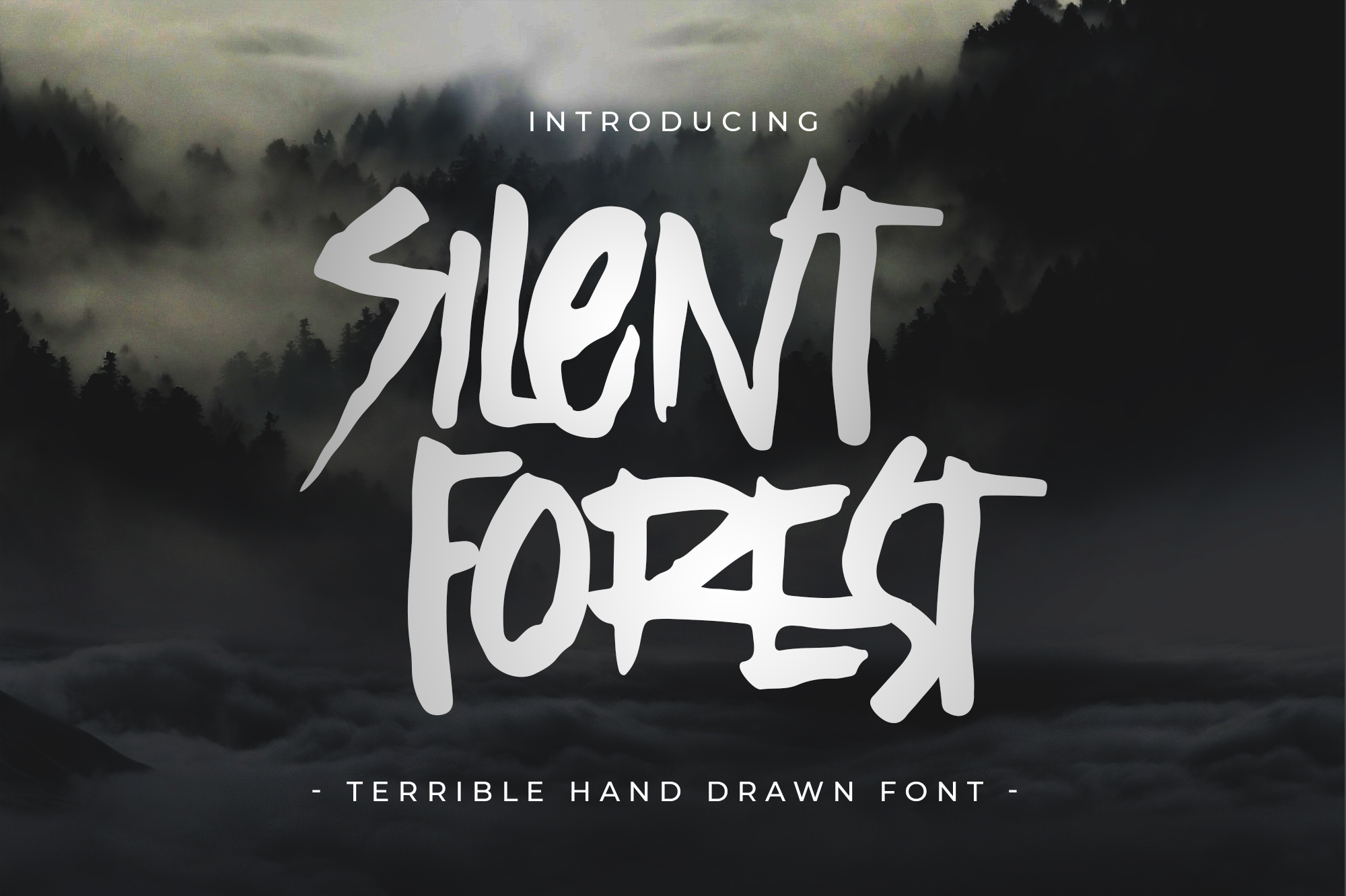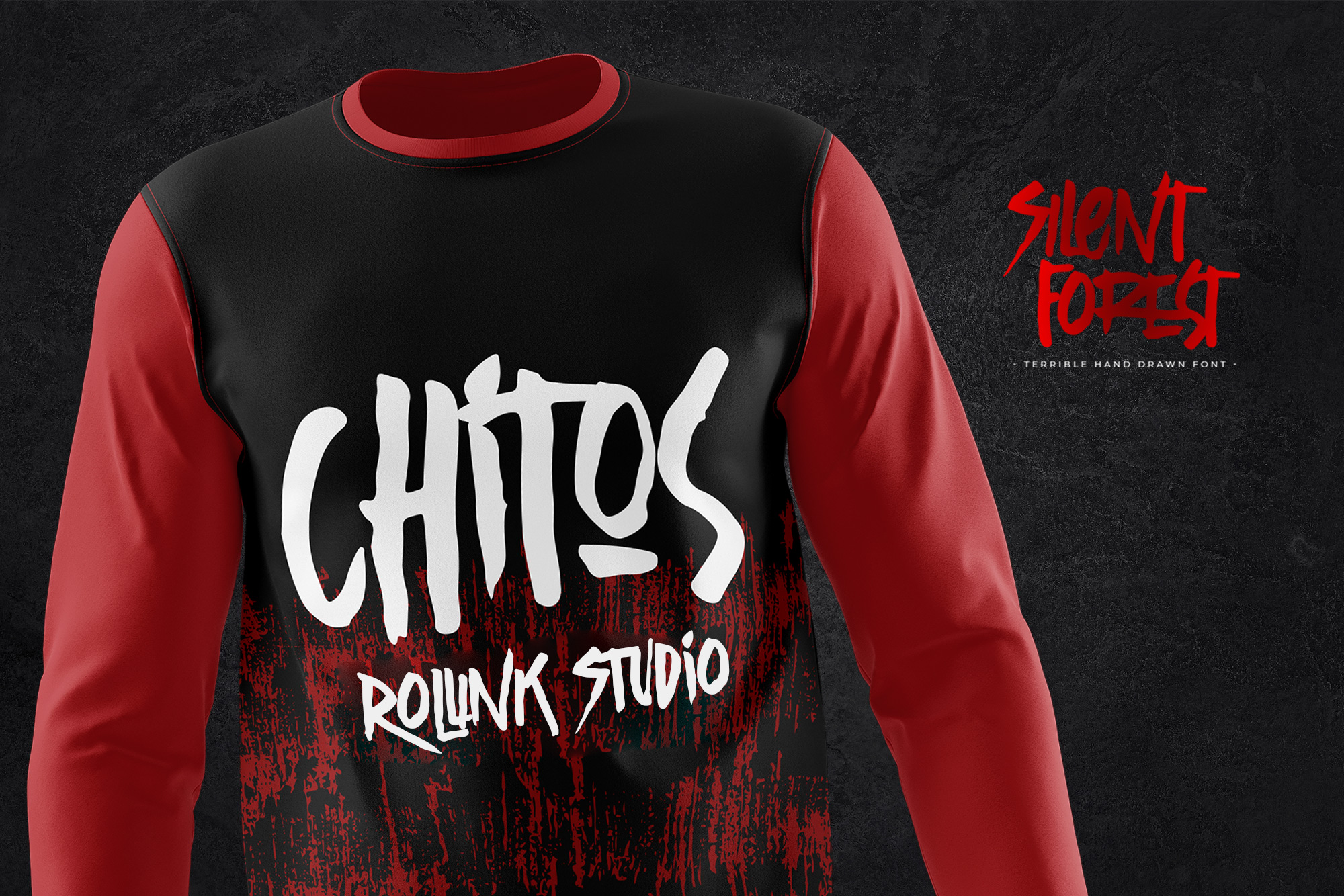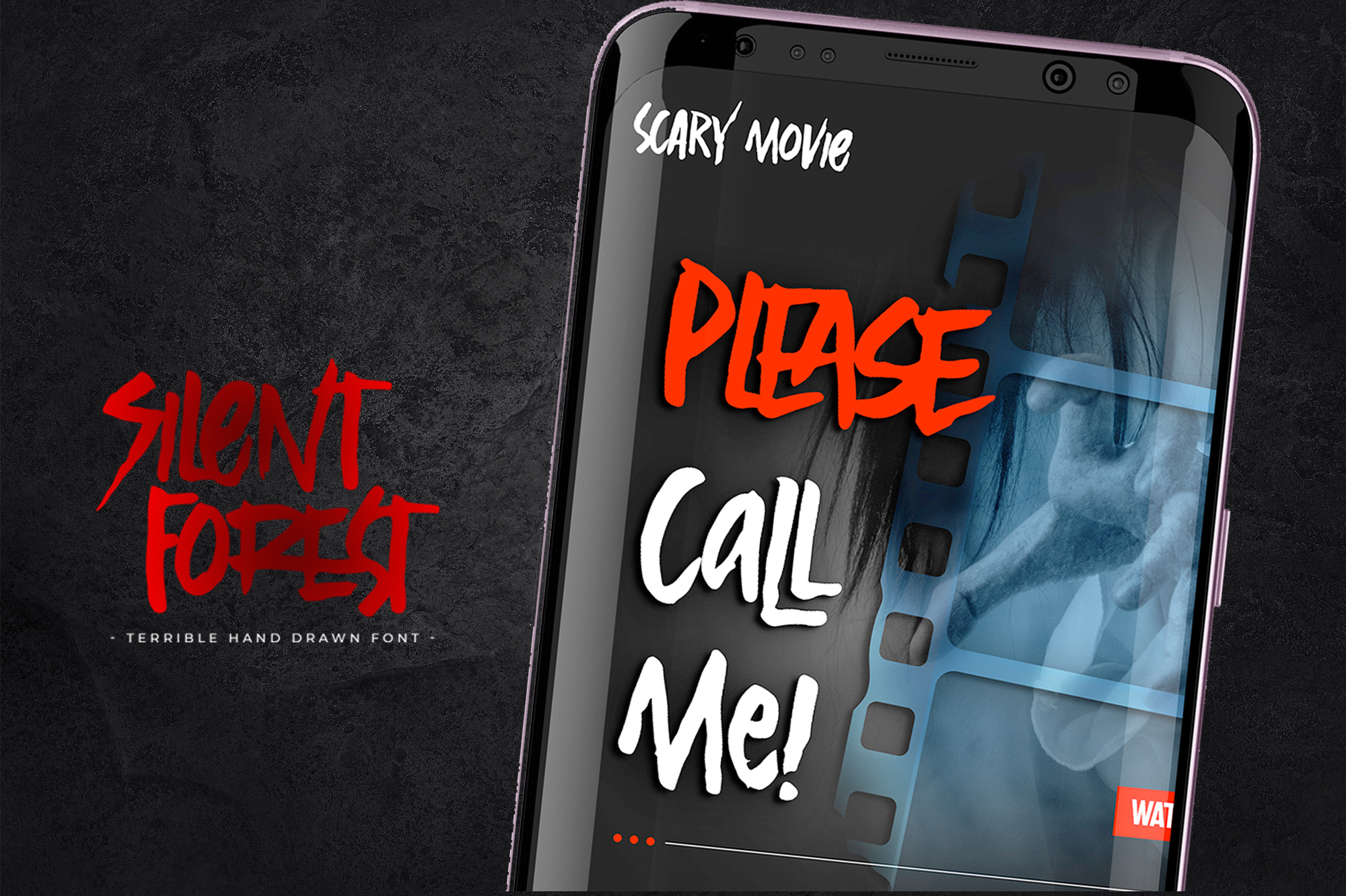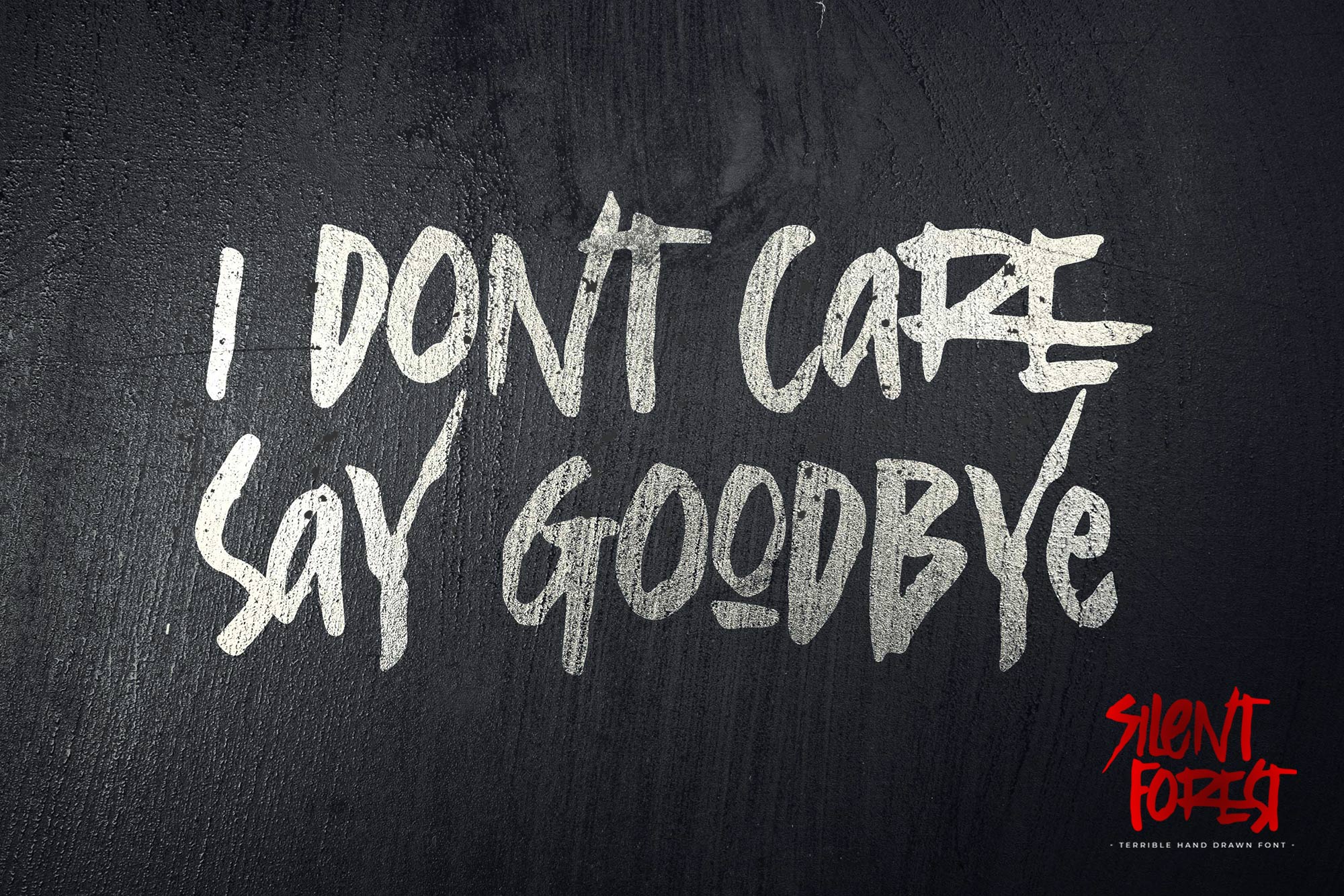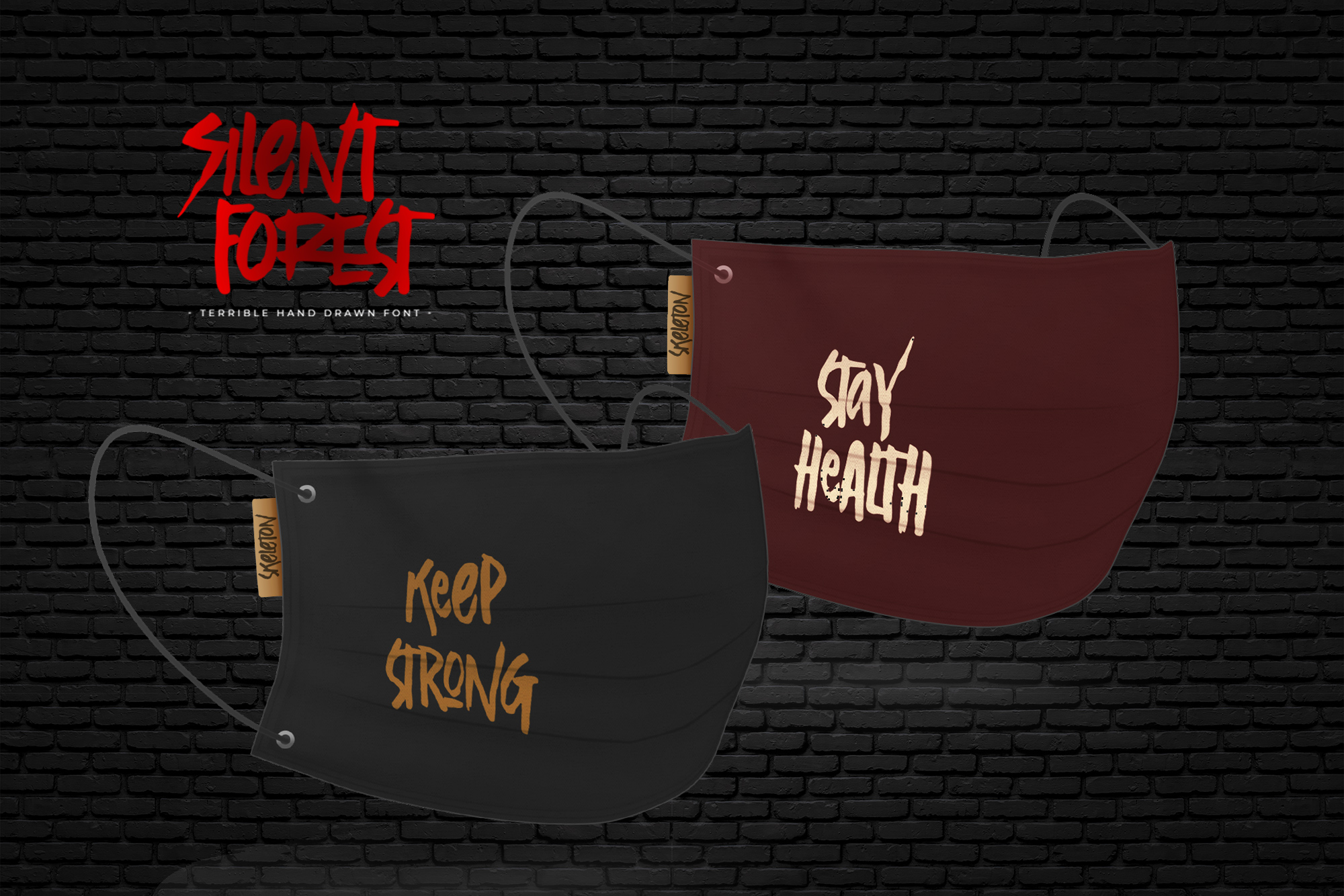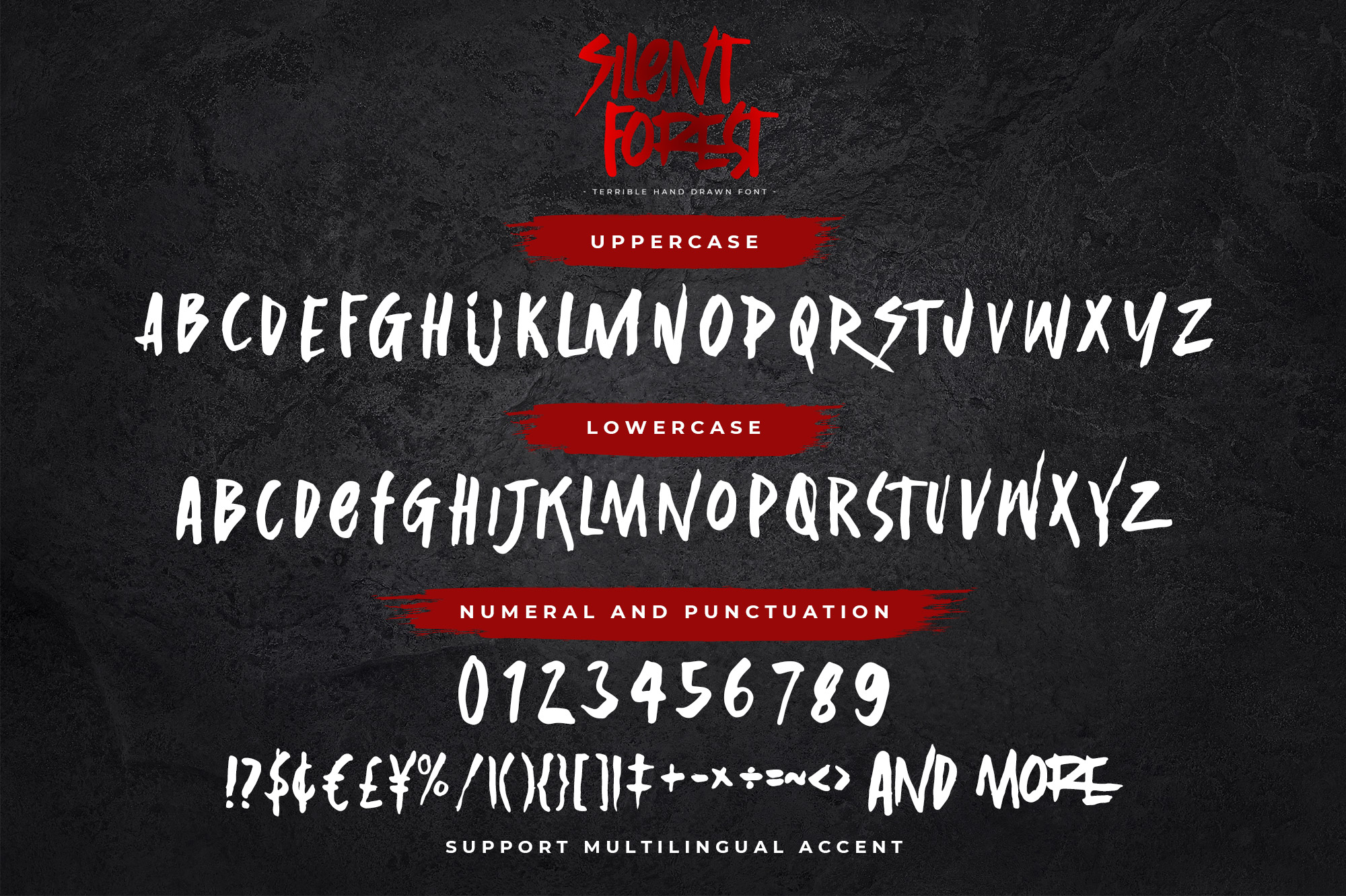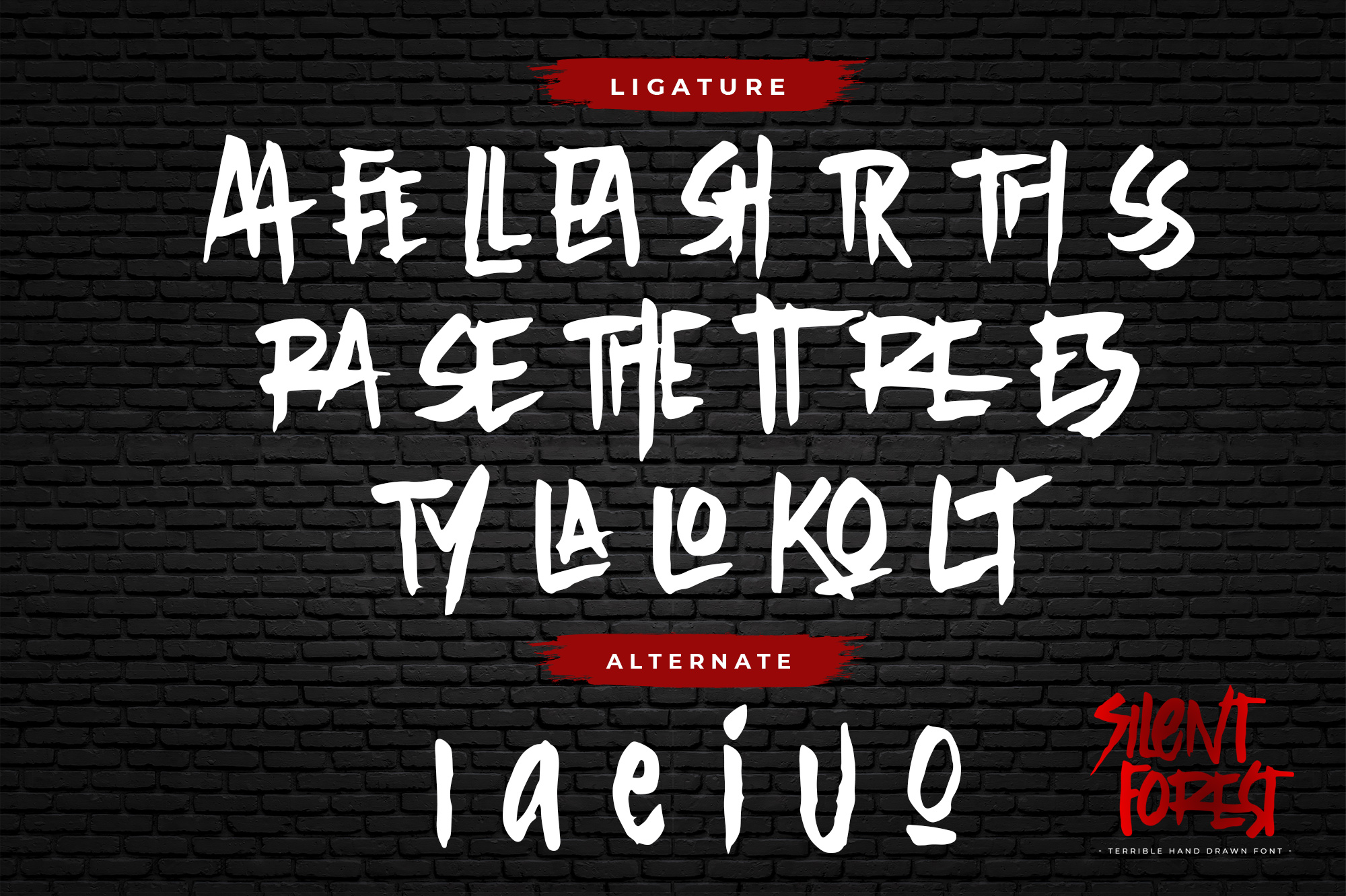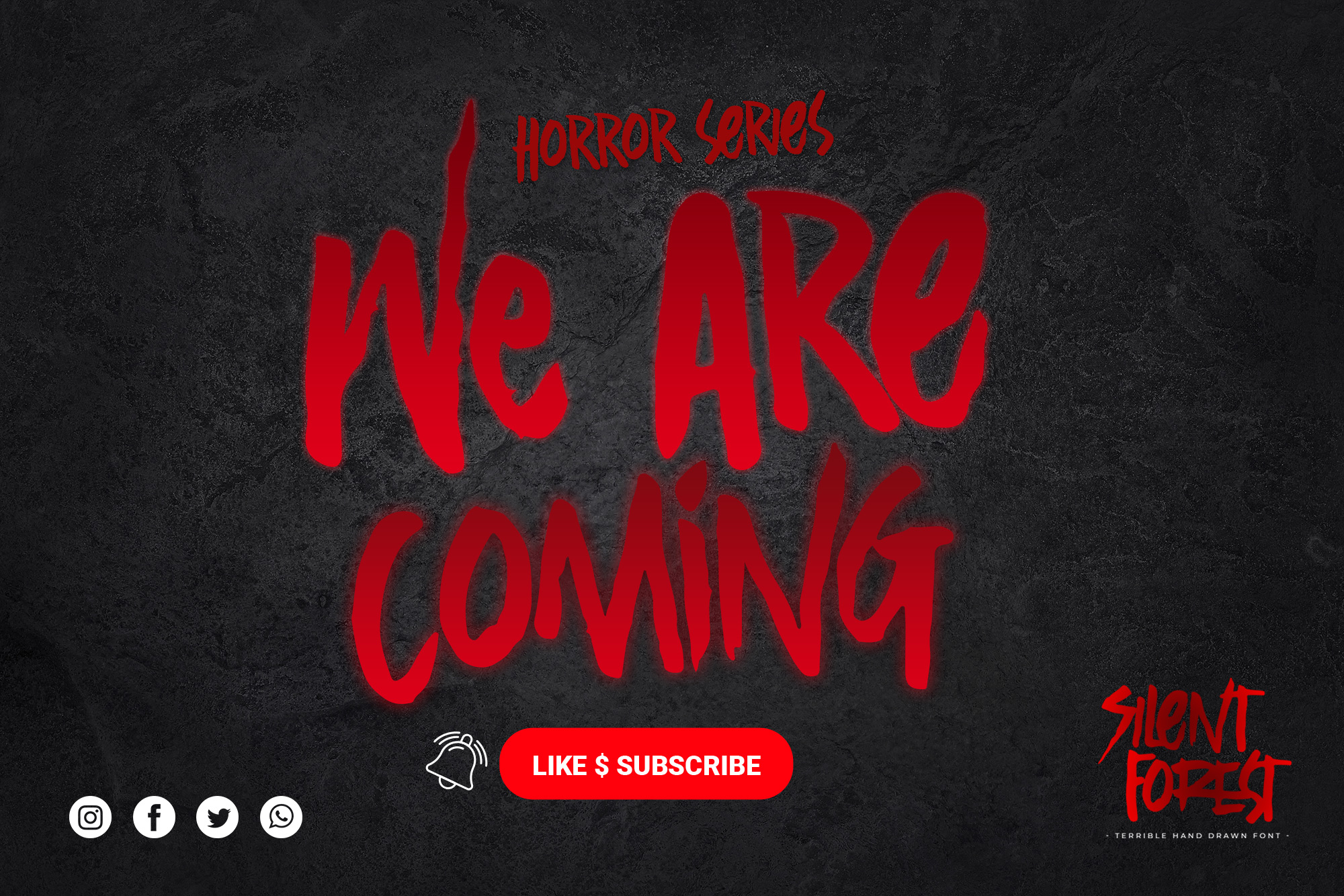
Silent Forest – Terrible Hand Drawn Font ,cool and is a strong that is written casually and quickly.
That is why Silent Forest has a Hand Drawn , and strong characteristic more natural look. You can activate Ligatures dan glyphs OpenType panel.
Silent Forest Perfect for designs, branding projects, Logo design,Quotes product packaging and another Project that require modern display font.